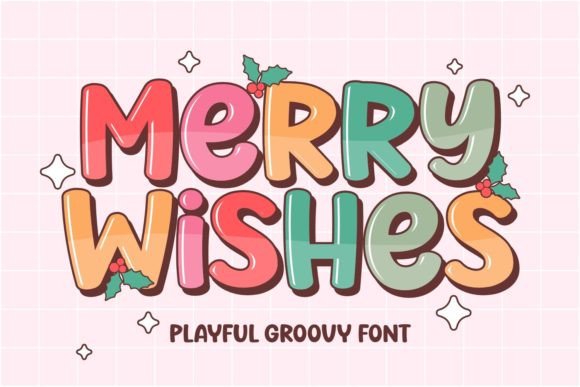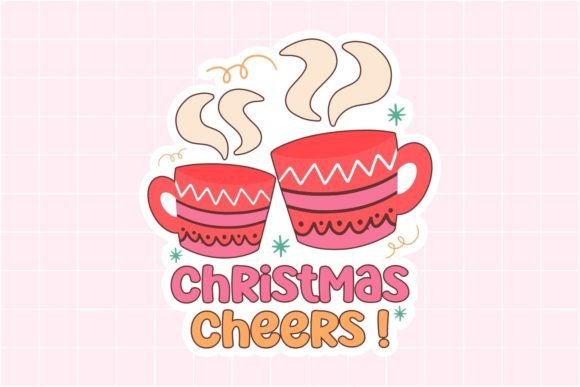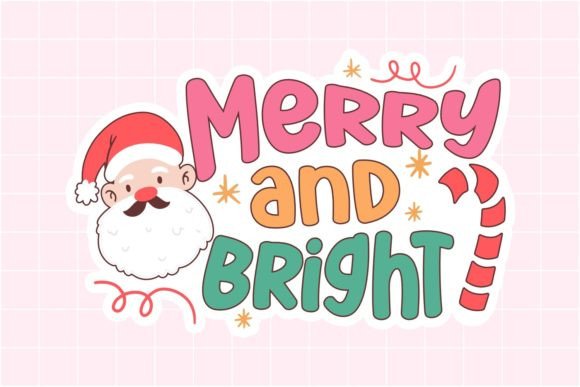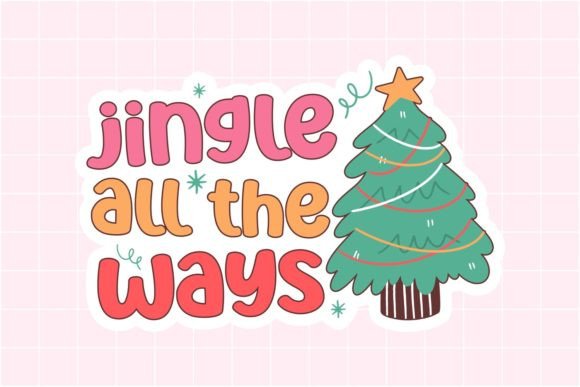
Merry Wishes Font: A Playful Retro Font for Holiday Designs!
About the Merry Wishes Font
Introducing the Merry Wishes Font, a beautifully crafted typeface designed to elevate your creative projects. Merry Wishes is a fun groovy font, inspired by retro bold typography. This font is perfect for a design that requires a playful accent. suitable for Christmas design, book covers, posters, packaging, merchandise, logotype, and much more.
Masterfully designed to become a true favorite, this font has the potential to bring each of your creative ideas to the highest level!
Merry Wishes excels in headlines, short-form text, and branding applications where a bold, playful personality is desired. It’s ideal for projects targeting younger audiences or those with a retro aesthetic, such as posters, packaging for novelty items, and social media graphics. Avoid using it for large blocks of body text or UI elements; its strong character can be overwhelming in extended use.
Pair Merry Wishes with a clean sans-serif like Open Sans for a balanced contrast, or a classic serif such as Garamond for a more sophisticated feel. For a more playful approach, consider pairing it with a quirky script font, but keep the script usage limited to avoid visual clutter.
Its core personality is undeniably cheerful and retro-modern; think vibrant, nostalgic, and fun. Brands focused on entertainment, confectionery, or children’s products would find it particularly suitable.